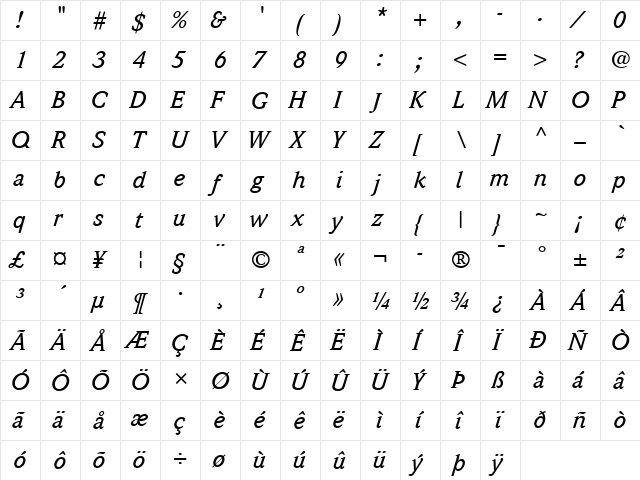
Weidemann LT Medium Italic Font Preview
Weidemann LT Medium Italic
Weidemann LT Medium Italic Font Details
Design Context for Weidemann LT Medium Typeface
Weidemann LT Medium takes a measured approach to typography — its balanced proportions and neutral character make it a reliable workhorse for both digital and print work. The slanted form adds forward momentum and visual energy. Its slender proportions lend an understated elegance to any composition.
Pro Tip: Use Weidemann LT Medium for emphasis, pull quotes, and subheadings where its slanted energy can add rhythm to the layout.